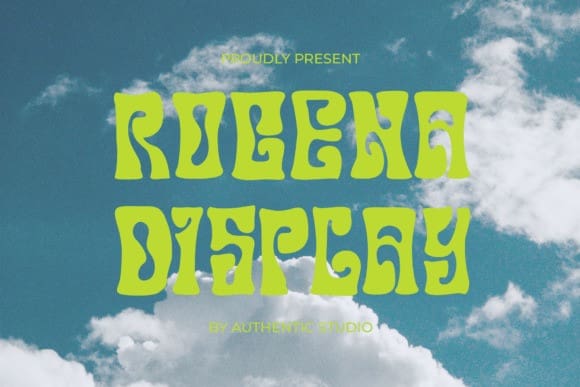
Rogena Display Font
Rogena Display Font is a groovy, art-nouveau serif display font. It’s retro, bold, and playful vibe is perfect if you need a dose of fun in your project.